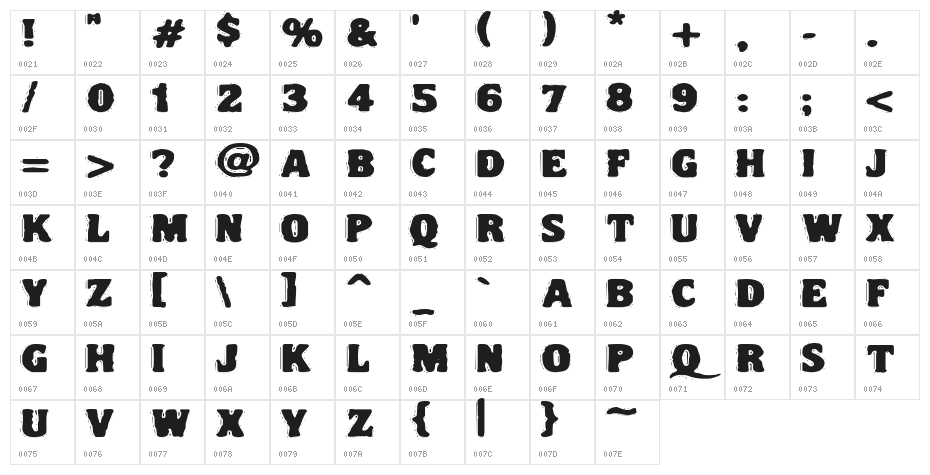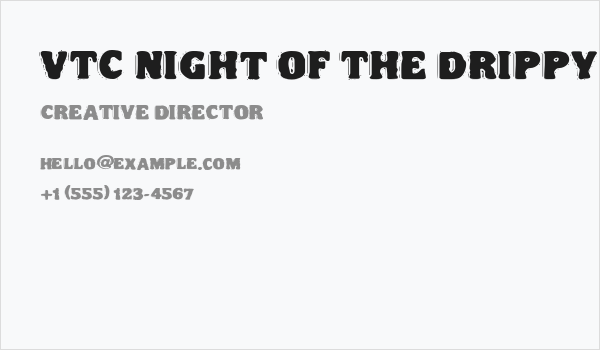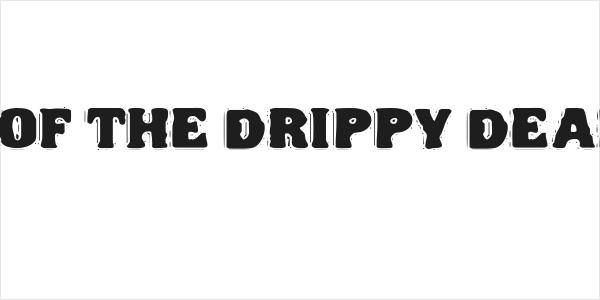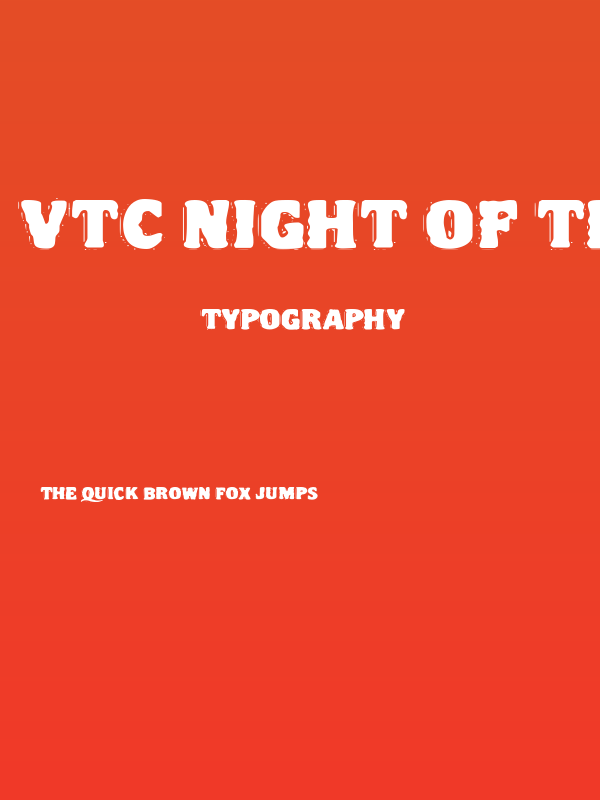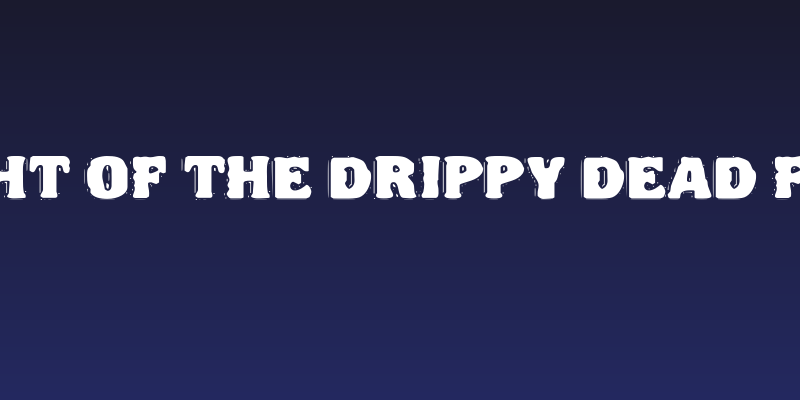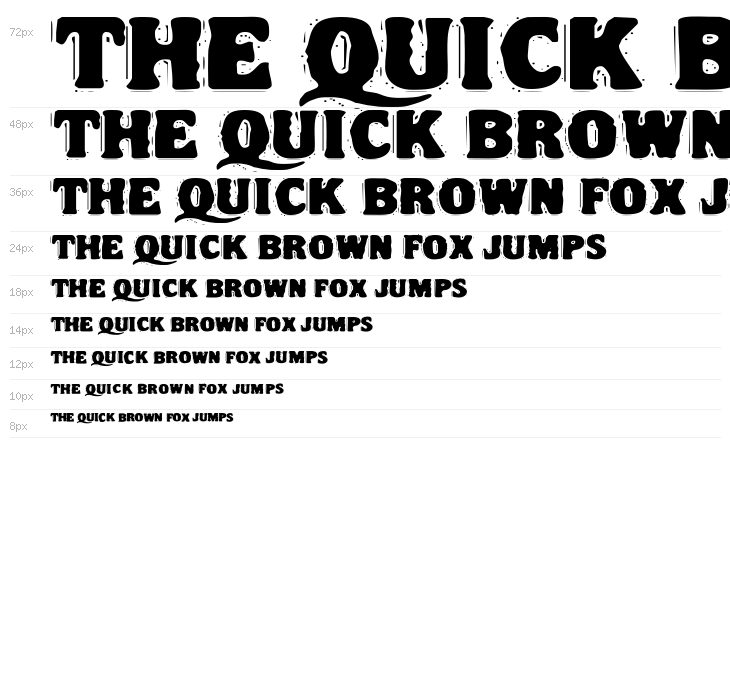
VTC Night Of The Drippy Dead FatCaps Font
VTC Night Of The Drippy Dead FatCaps Description
This font features a bold and playful style with a dripping effect that gives it a unique, eerie appearance. The characters are thick and rounded, with a consistent flow that resembles liquid or paint dripping down. This decorative style is eye-catching and perfect for themes related to horror, Halloween, or anything that requires a spooky or unconventional look. The uppercase and lowercase letters maintain a uniform thickness, while the numbers and special characters follow the same dripping motif, enhancing the overall cohesive design.
| Proposed Projects | Ideal for Halloween posters, horror-themed event flyers, creative logos, and eye-catching headlines. |